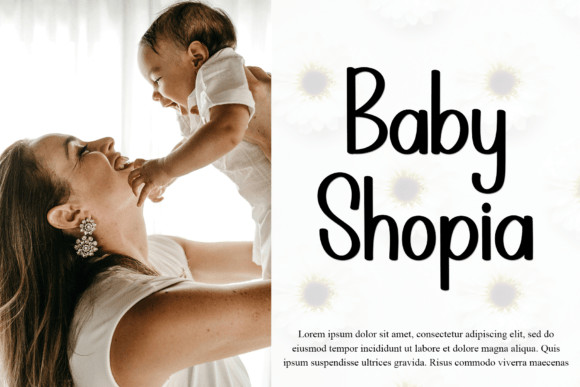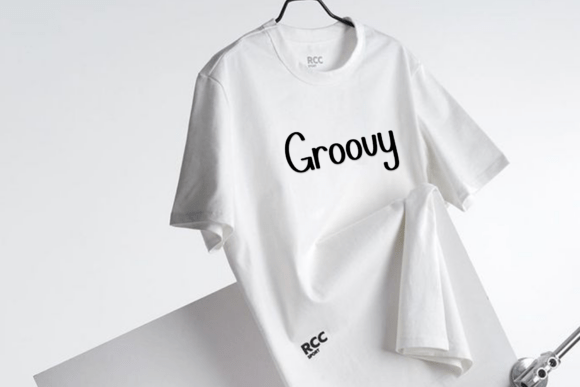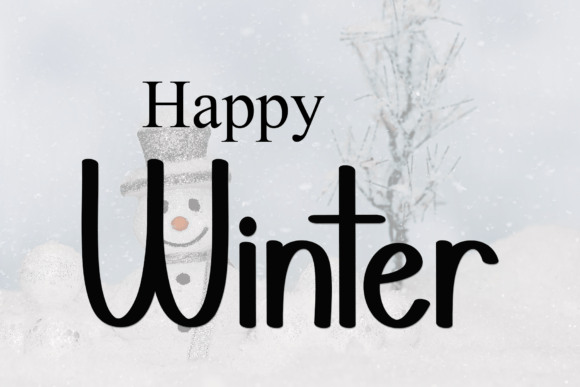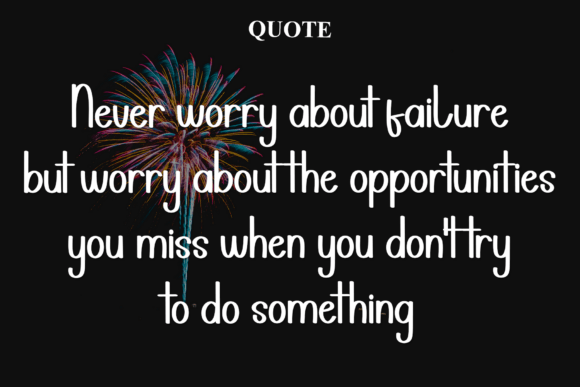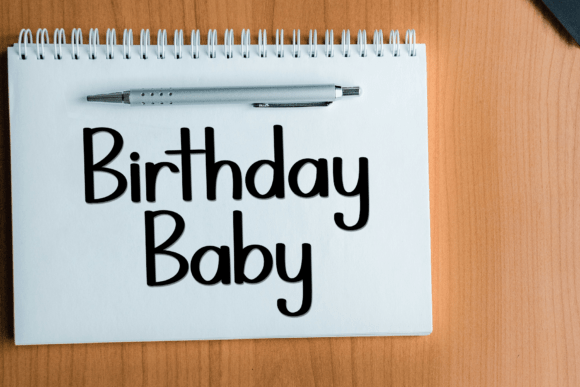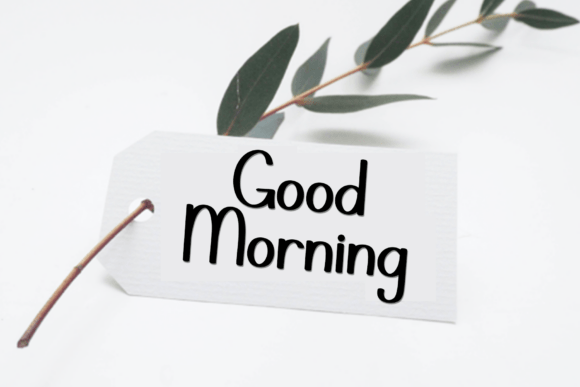
Introduction to Darling Monday Font
Remember that moment when you’re brainstorming ideas for a creative project and the perfect font just pops into your mind? For designers, finding that one font that elevates a project from good to great can be a game-changer. One such font that has captured the hearts of many is the Darling Monday Font.
This charming font is more than just a pretty face; it’s a design resource that can add a touch of warmth and friendliness to any project. With its round, playful strokes and hand-drawn aesthetic, the Darling Monday Font is perfect for personal projects, invitations, and social media graphics that require a high-quality, creative touch.
Key Features of Darling Monday Font
- High-quality font with a unique, creative design perfect for various projects, including digital art and graphic design.
- Designed with a modern aesthetic, making it ideal for contemporary creative projects.
Honest Review: Darling Monday Font
As a designer, I’m always on the lookout for high-quality design resources to elevate my creative projects. The Darling Monday Font caught my eye, and I decided to give it a try.
What works well about this font is its elegant and refined aesthetic. It’s perfect for projects that require a touch of sophistication and class. The font is available as a free download, which is always a plus in my book.
- ✨ Elegant and refined aesthetic
However, there are a few limitations to consider. The font doesn’t come with a transparent background, which can be a bit of a pain when working with layered designs. Additionally, the font’s legibility can be a bit tricky in smaller font sizes.
- ⚠️ Legibility issues in smaller font sizes
Overall, I’m impressed with the Darling Monday Font, but I do wish it had a few more features to make it a top-notch design resource. Still, it’s a great option for designers on a budget or those looking for a simple, elegant font for their creative projects.
To get the most out of the Darling Monday Font, use it in a high-quality design project. This font is perfect for creative projects that require a unique and elegant touch. You can also use it with a transparent background to create a stunning visual effect.
The Darling Monday Font is commonly used in design projects such as logos, brochures, and social media graphics. It’s also a great resource for designers who need a high-quality, free download font for their creative projects.